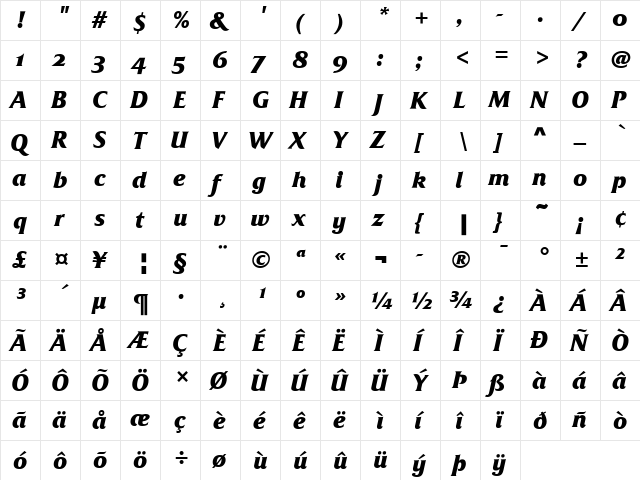
Friz Quadrata Bold Italic
Design Context for Friz Quadrata Typeface
Friz Quadrata takes a measured approach to typography — its balanced proportions and neutral character make it a reliable workhorse for both digital and print work. The dynamic lean of this cut emphasises speed and emphasis in any layout. Its bold stroke weight gives it real presence on the page.
Pro Tip: Use Friz Quadrata for emphasis, pull quotes, and subheadings where its slanted energy can add rhythm to the layout.